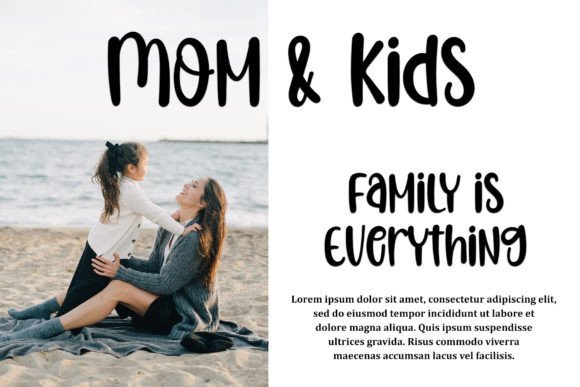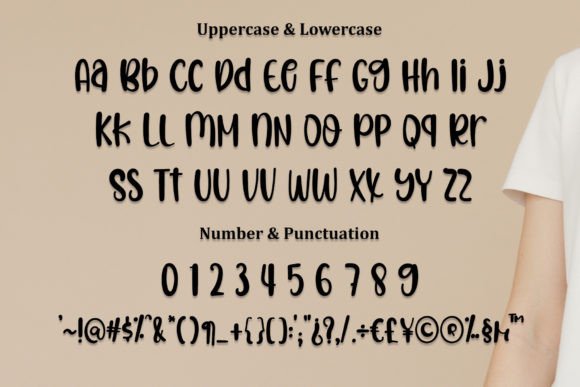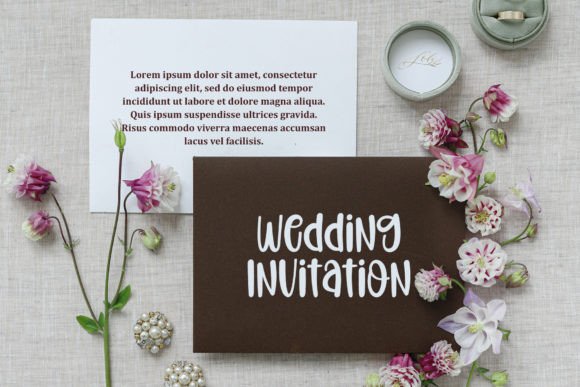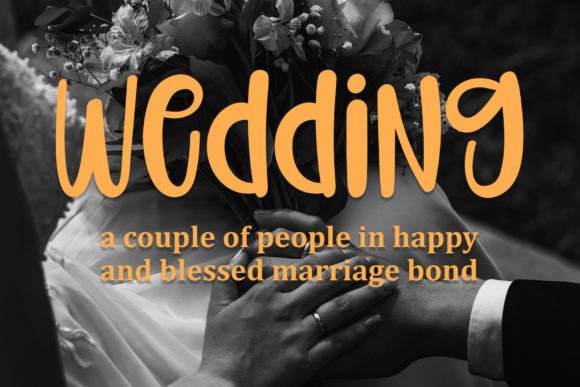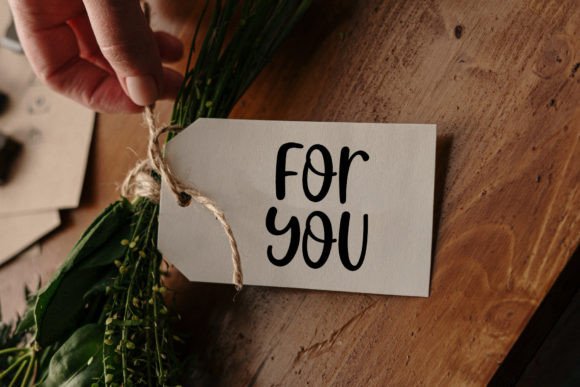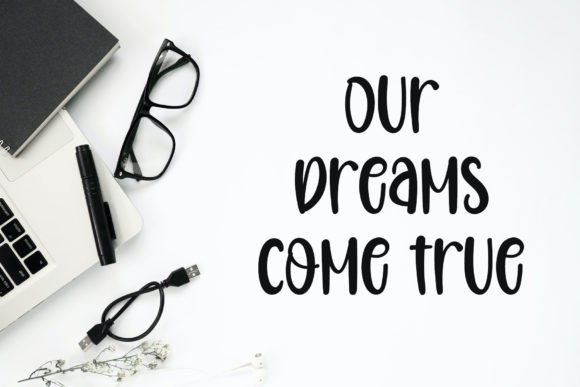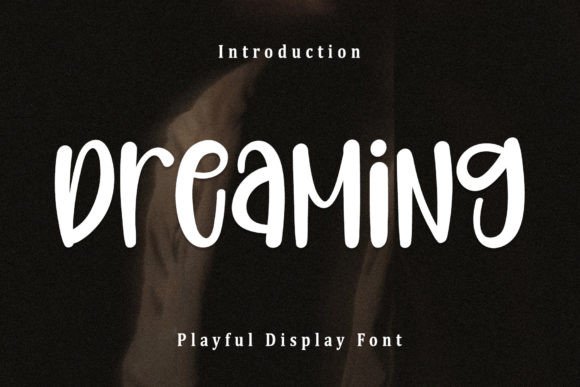
Dreaming Font: Elevate Your Designs with a Cool, Simple, and Playful Handwritten Style
Are you tired of using the same old fonts in your designs? Look no further than the Dreaming Font, a cool, simple, and playful handwritten font that’s sure to take your creative projects to the next level. With its incredibly versatile design, this font can fit a wide pool of designs, making it a must-have for designers and crafters alike.
The Charm of Dreaming Font
The Dreaming Font is a beautifully crafted handwritten font that’s perfect for adding a personal touch to your designs. Its playful and carefree vibe makes it ideal for projects that require a friendly and approachable feel. Whether you’re working on a branding project, a social media graphic, or a craft project, this font is sure to bring a smile to your audience’s faces.
One of the standout features of the Dreaming Font is its simplicity. Unlike other handwritten fonts that can be overly ornate or complicated, this font is easy to read and understand. Its clean lines and simple letterforms make it perfect for use in a variety of contexts, from large headings to small body text.
The Versatility of Dreaming Font
The Dreaming Font is incredibly versatile, making it suitable for a wide range of designs. Here are just a few examples of how you can use this font in your creative projects:
- Branding and Logo Design: Use the Dreaming Font to create a unique and memorable brand identity. Its playful vibe makes it perfect for companies that want to convey a friendly and approachable image.
- Social Media Graphics: Add a personal touch to your social media graphics with the Dreaming Font. Its simple and easy-to-read design makes it perfect for use in posts, stories, and other social media content.
- Crafting and DIY Projects: The Dreaming Font is a great choice for crafters and DIY enthusiasts. Use it to add a personal touch to your handmade cards, gift tags, and other craft projects.
- Wedding and Event Design: The Dreaming Font is also perfect for wedding and event design. Its playful and romantic vibe makes it ideal for use in wedding invitations, programs, and other event materials.
Why Choose the Dreaming Font?
So why should you choose the Dreaming Font for your next design project? Here are just a few reasons:
- Unique and Eye-Catching: The Dreaming Font is a unique and eye-catching font that’s sure to grab attention. Its playful vibe makes it perfect for designs that need to stand out from the crowd.
- Easy to Read: Unlike other handwritten fonts that can be difficult to read, the Dreaming Font is easy to understand. Its simple letterforms and clean lines make it perfect for use in a variety of contexts.
- Versatile: The Dreaming Font is incredibly versatile, making it suitable for a wide range of designs. Whether you’re working on a branding project or a craft project, this font is sure to fit the bill.
In conclusion, the Dreaming Font is a cool, simple, and playful handwritten font that’s perfect for designers and crafters alike. Its incredibly versatile design makes it suitable for a wide range of projects, from branding and logo design to social media graphics and craft projects. With its unique and eye-catching design, easy-to-read letterforms, and versatile style, this font is sure to elevate your designs to the highest levels. So why wait? Add the Dreaming Font to your favorite creative ideas and notice how it makes them come alive!